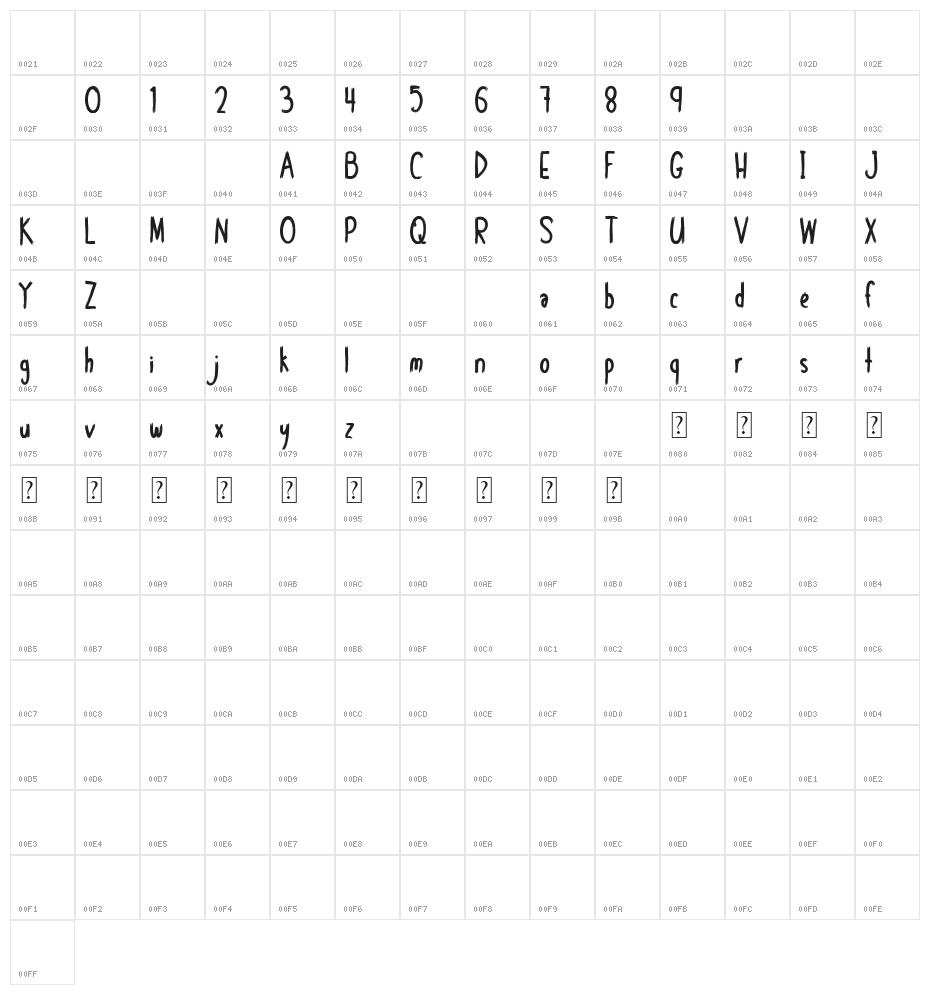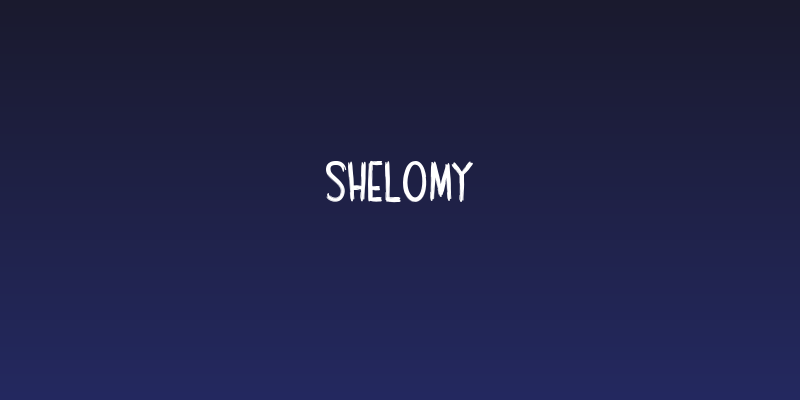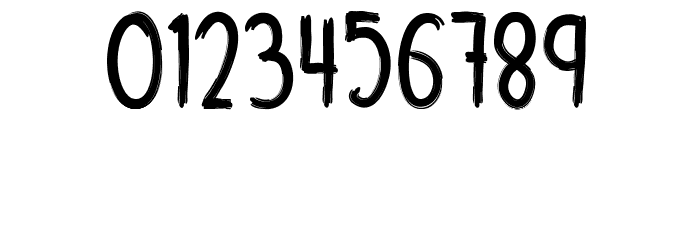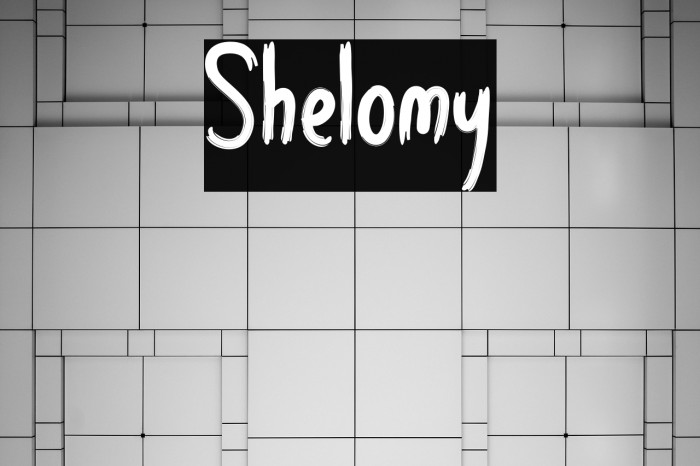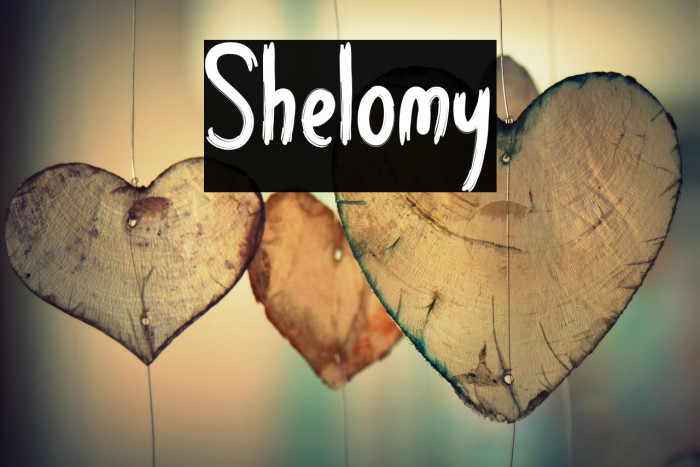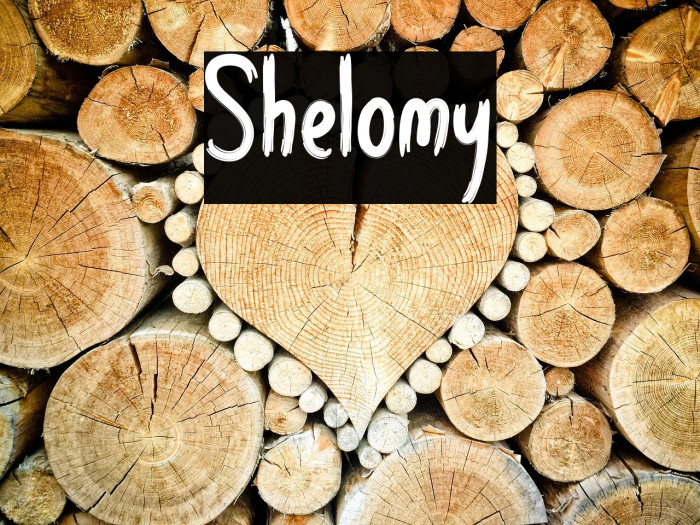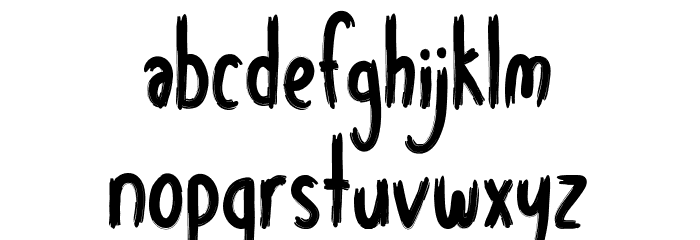
Shelomy Font
Shelomy Description
This font features a bold, hand-drawn style with a playful and artistic flair. The letters have a slightly irregular, brush-like texture, giving them a dynamic and energetic appearance. The uppercase characters are tall and narrow, while the lowercase letters maintain a consistent height, adding to the font's unique charm. The numbers and special characters follow the same aesthetic, ensuring a cohesive look across all text elements. This font is perfect for projects that require a creative and informal touch, such as posters, invitations, or branding materials.
| Proposed Projects | Ideal for creative projects like posters, invitations, and branding materials. |